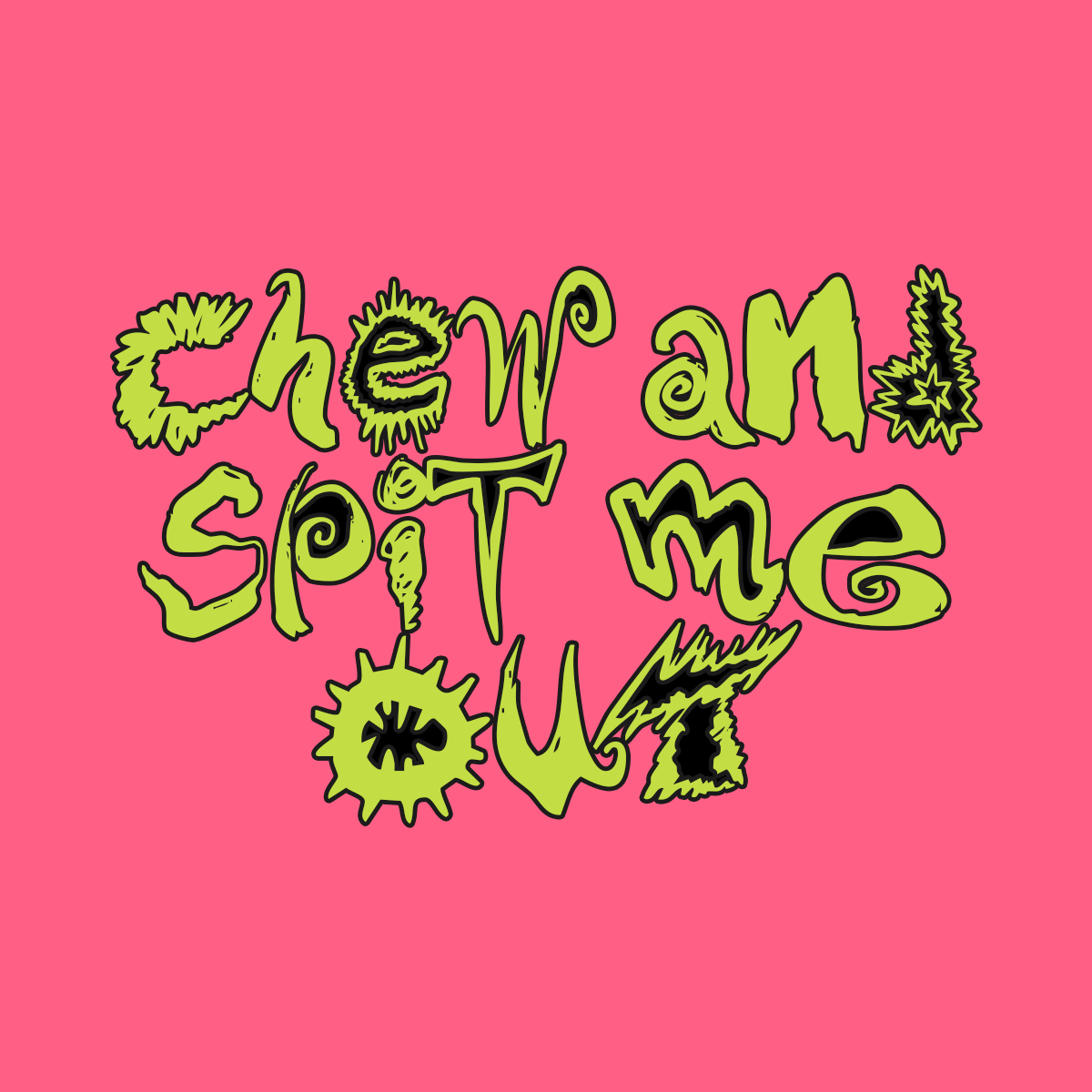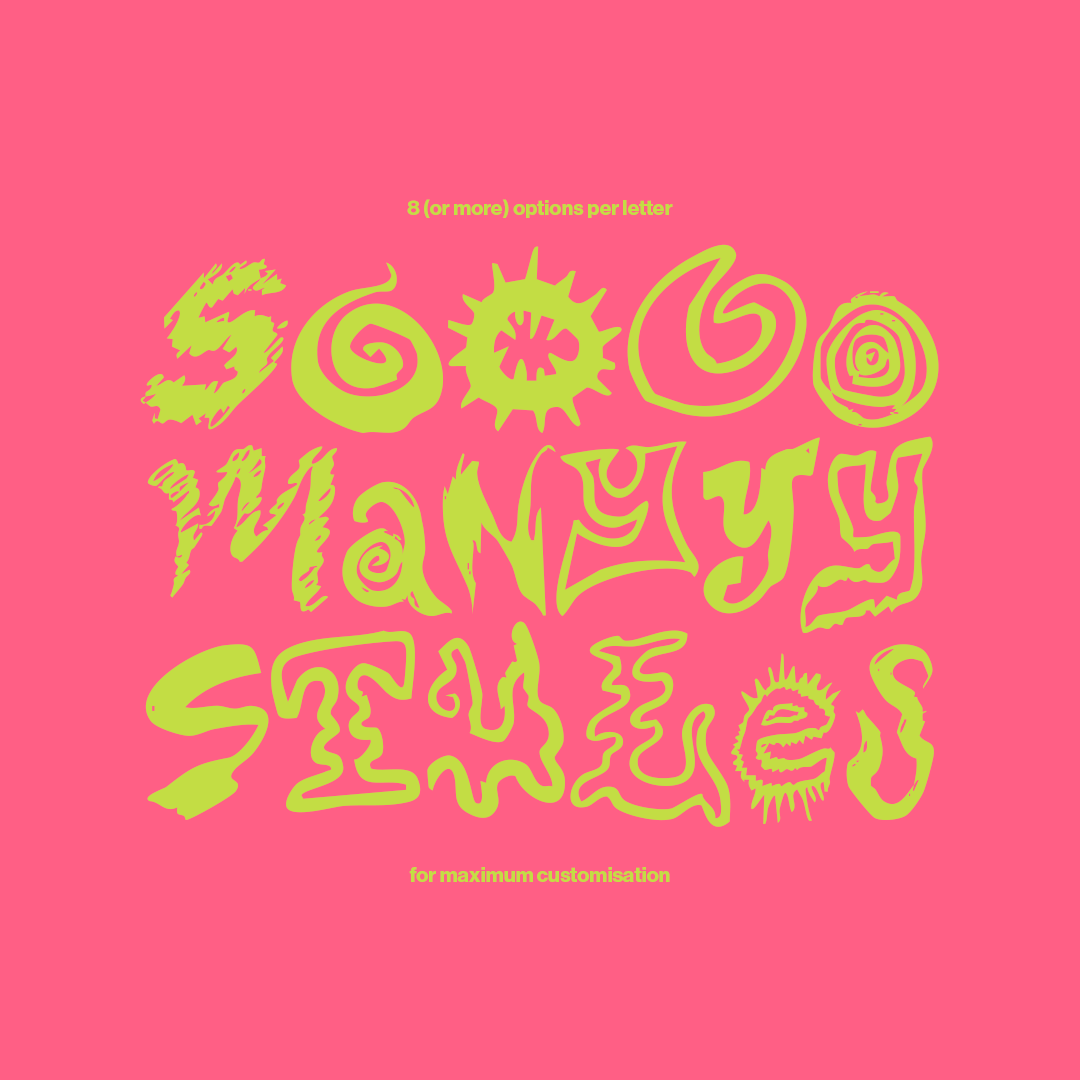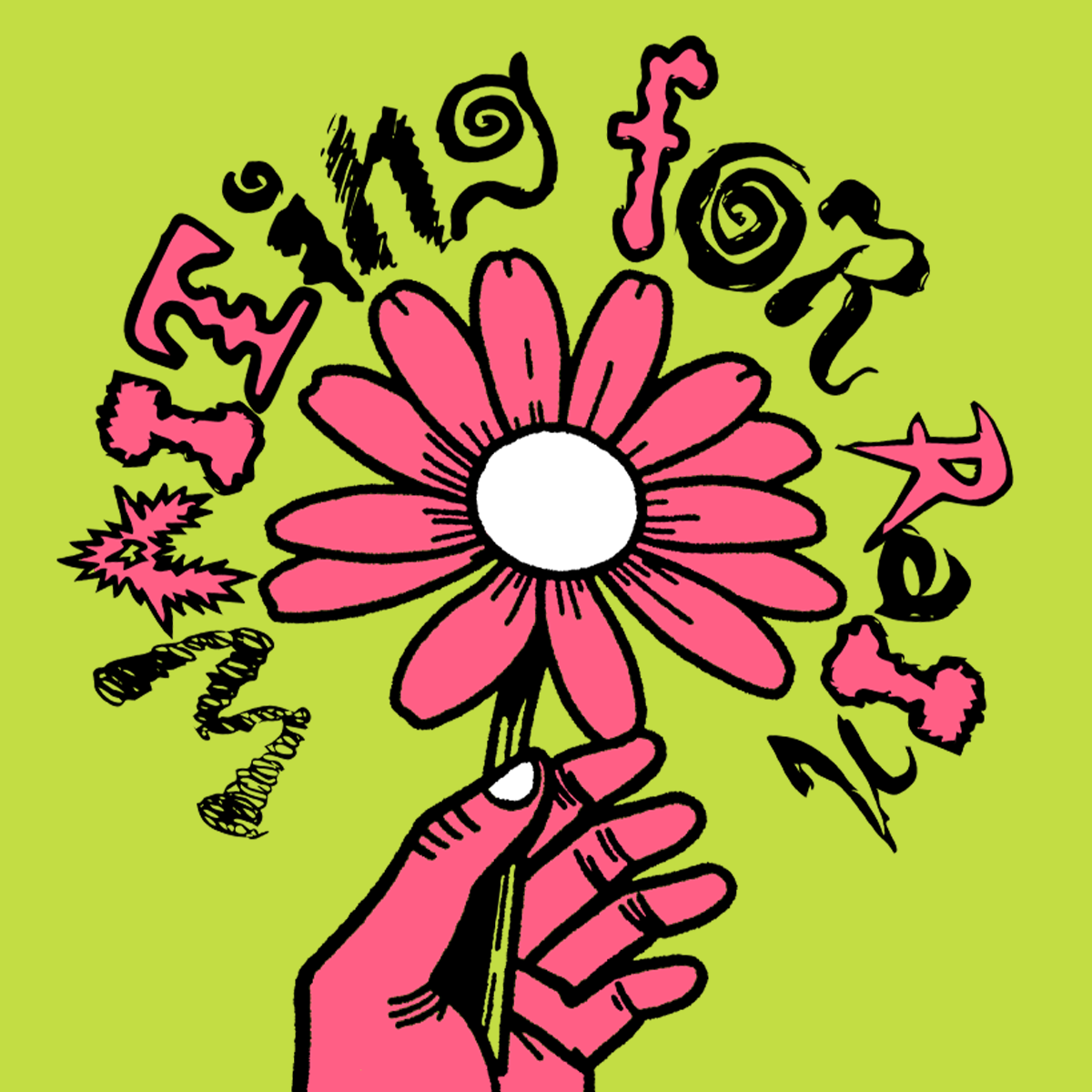
Introducing "Motion Sickness" which is a smorgasbord of crazy hand drawn letters to bring some chaos to your designs! Inspired by old school zine style lettering this font has a MINIMUM of 8 different variants per letter to give individual character to even the longest stretches of type.
This hand made feeling display font works great to compliment bold illustrations, over photographs, in branding, on T-shirts and so much more. It's hours of fun and the letters all compliment each other harmoniously so that you don't feel like you are struggling to find good combos.
Whats included in the font:
8+ Variants per letter
Numbers 0-9 with variants
A handful of symbols